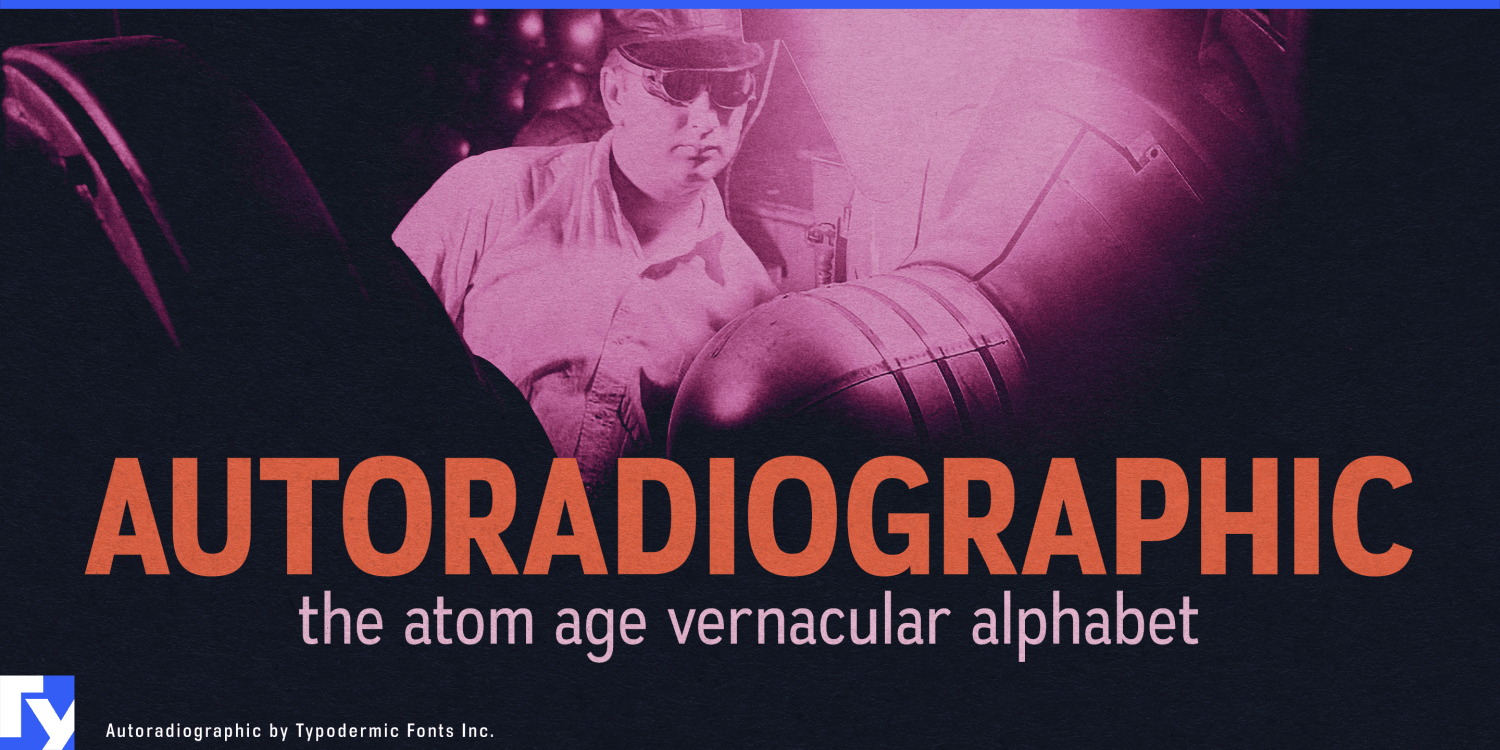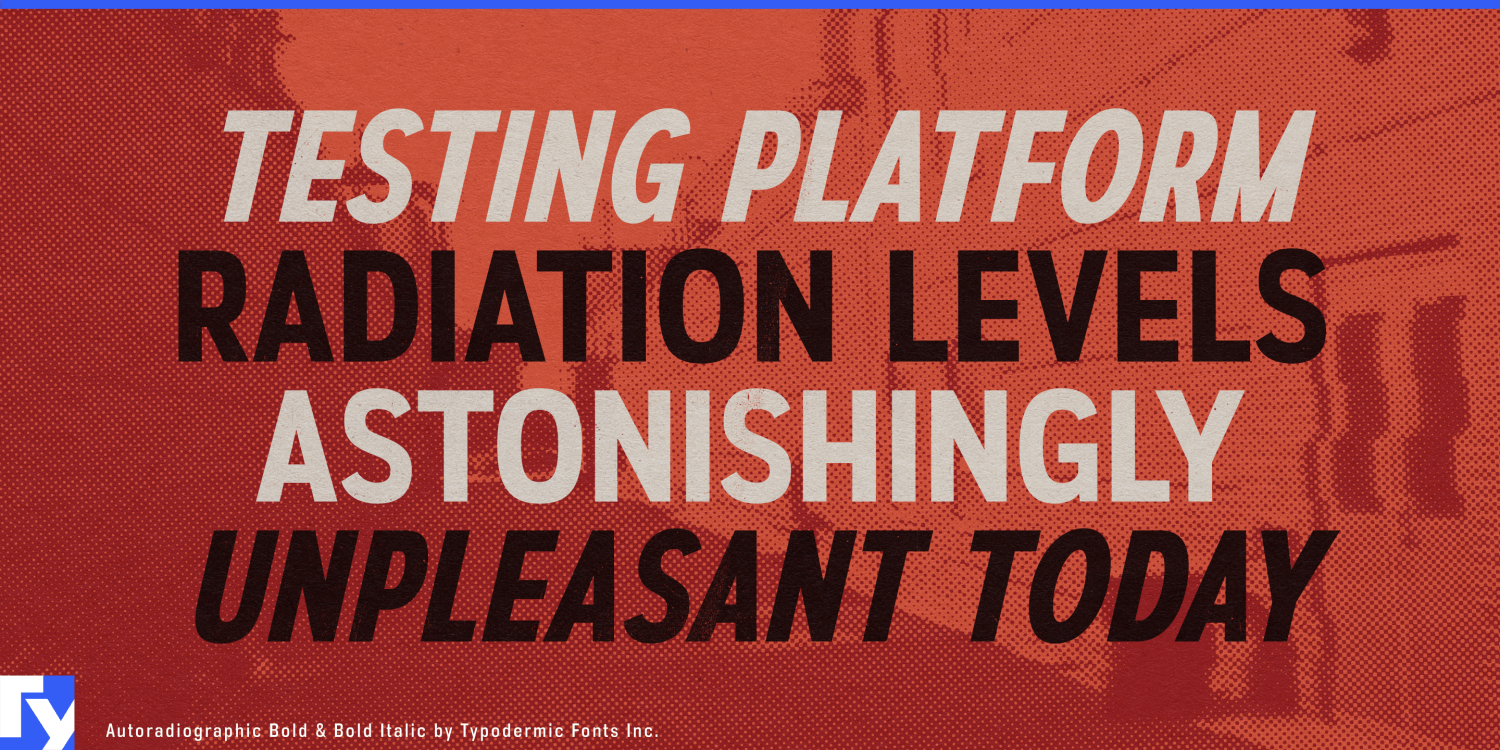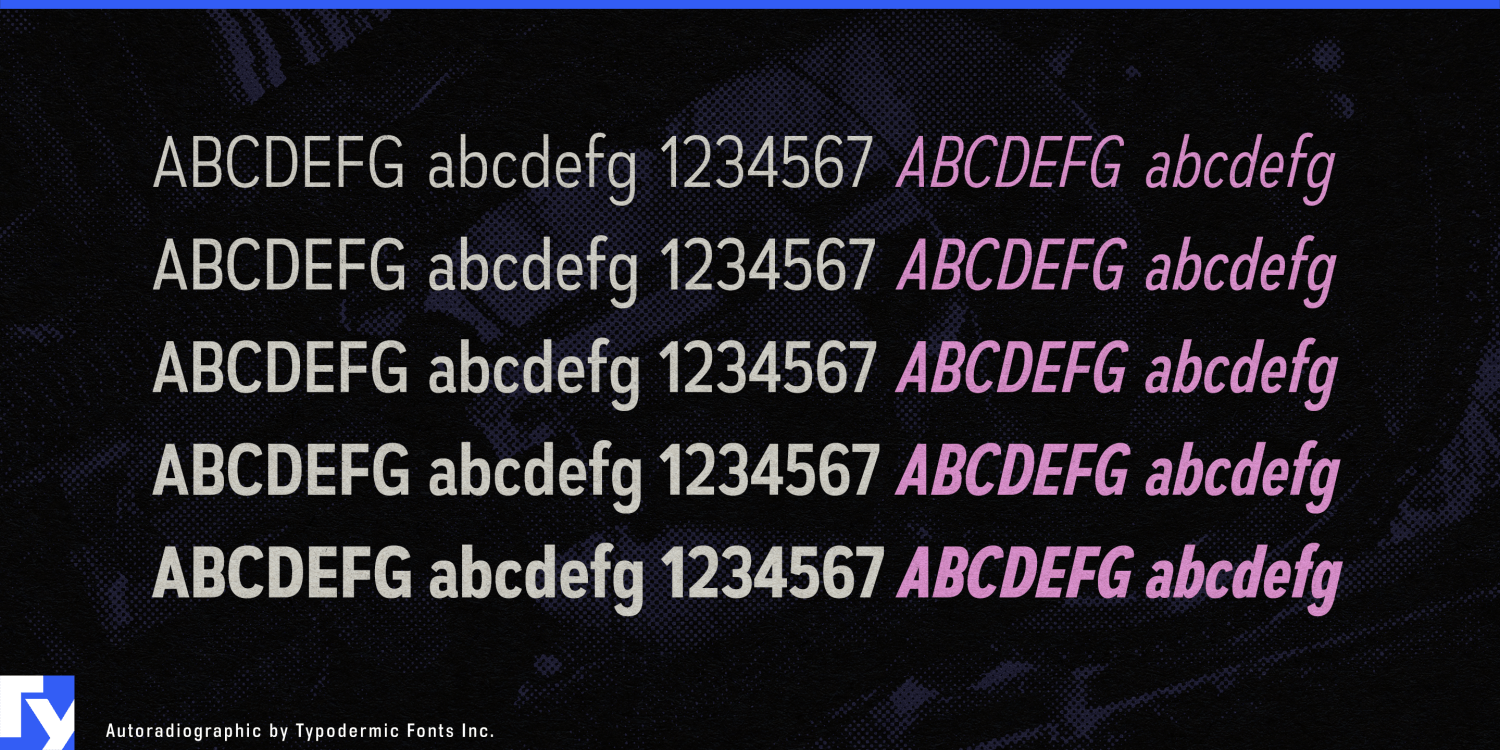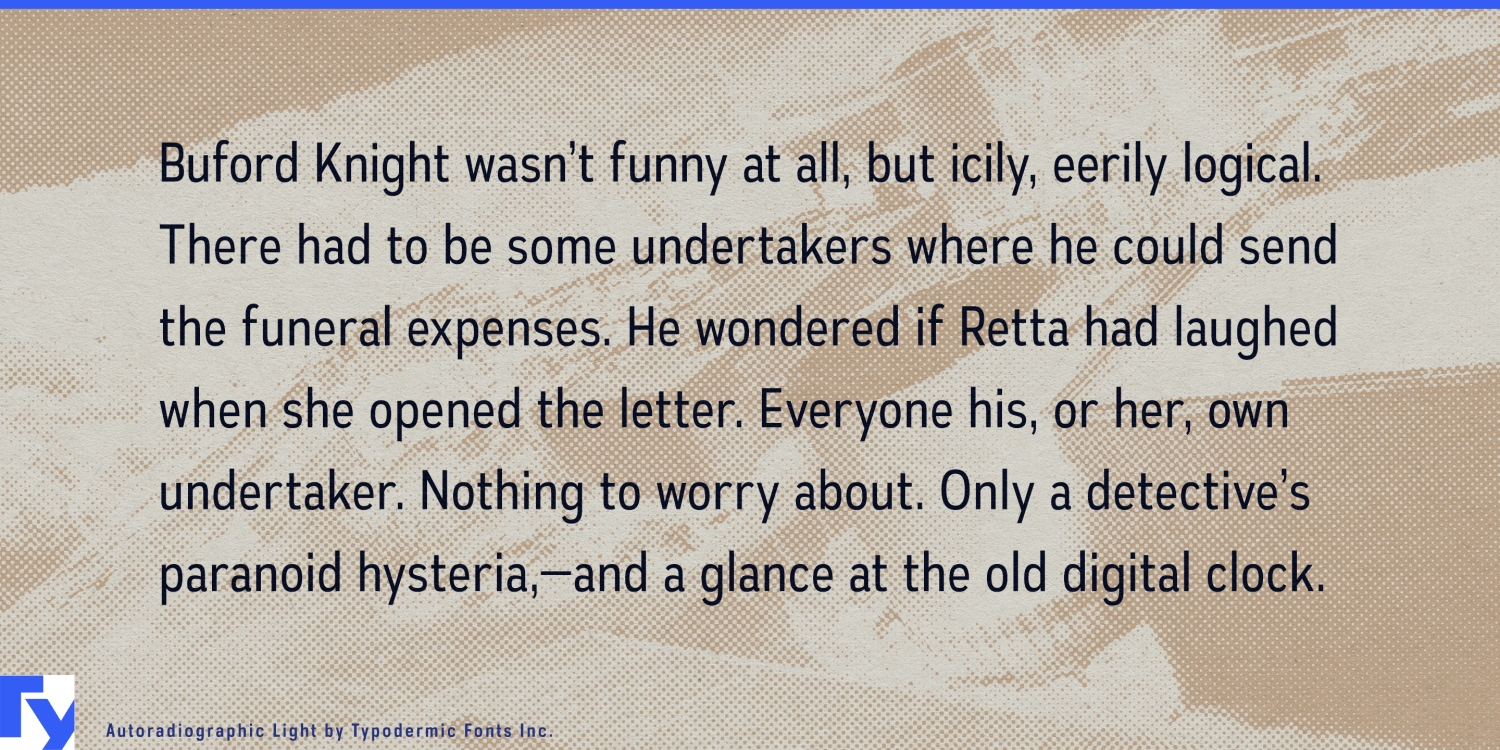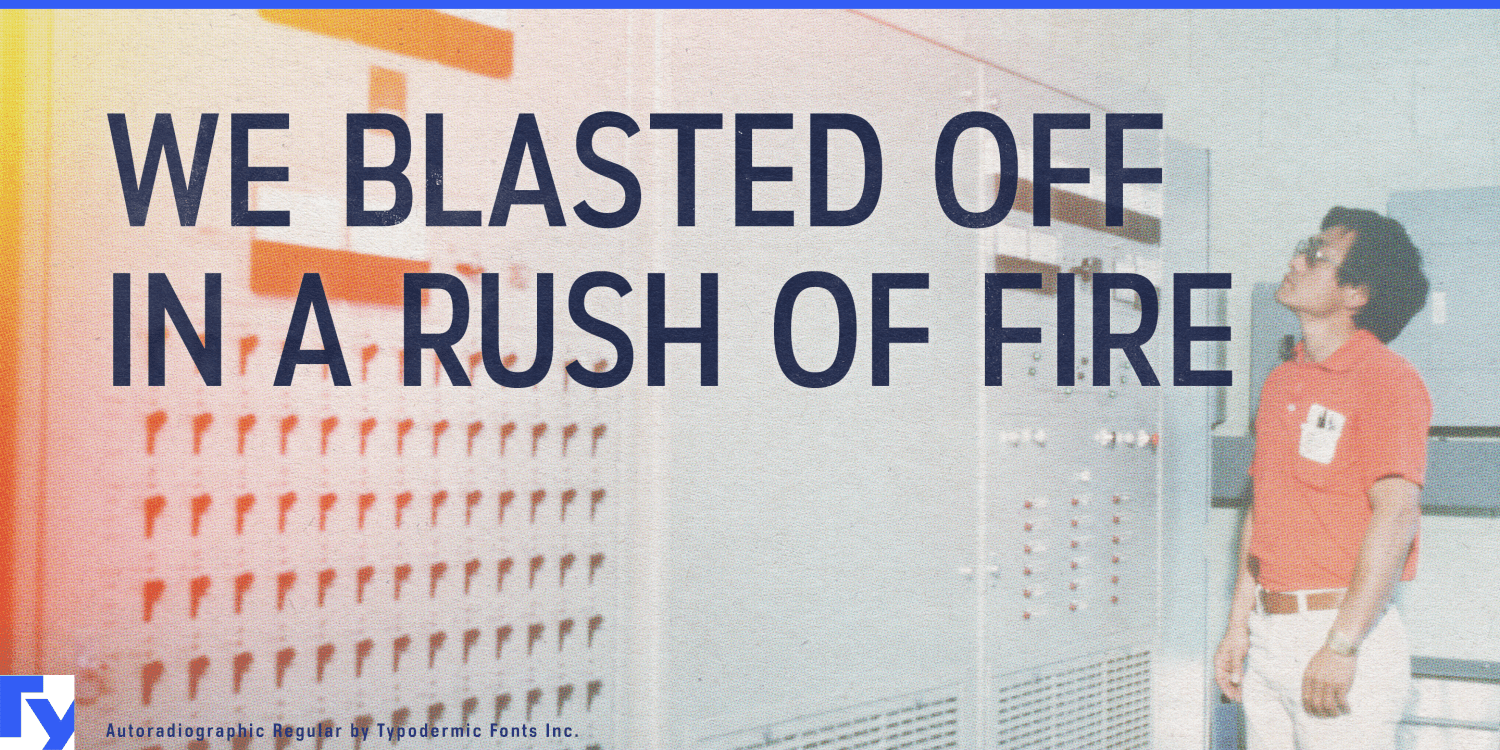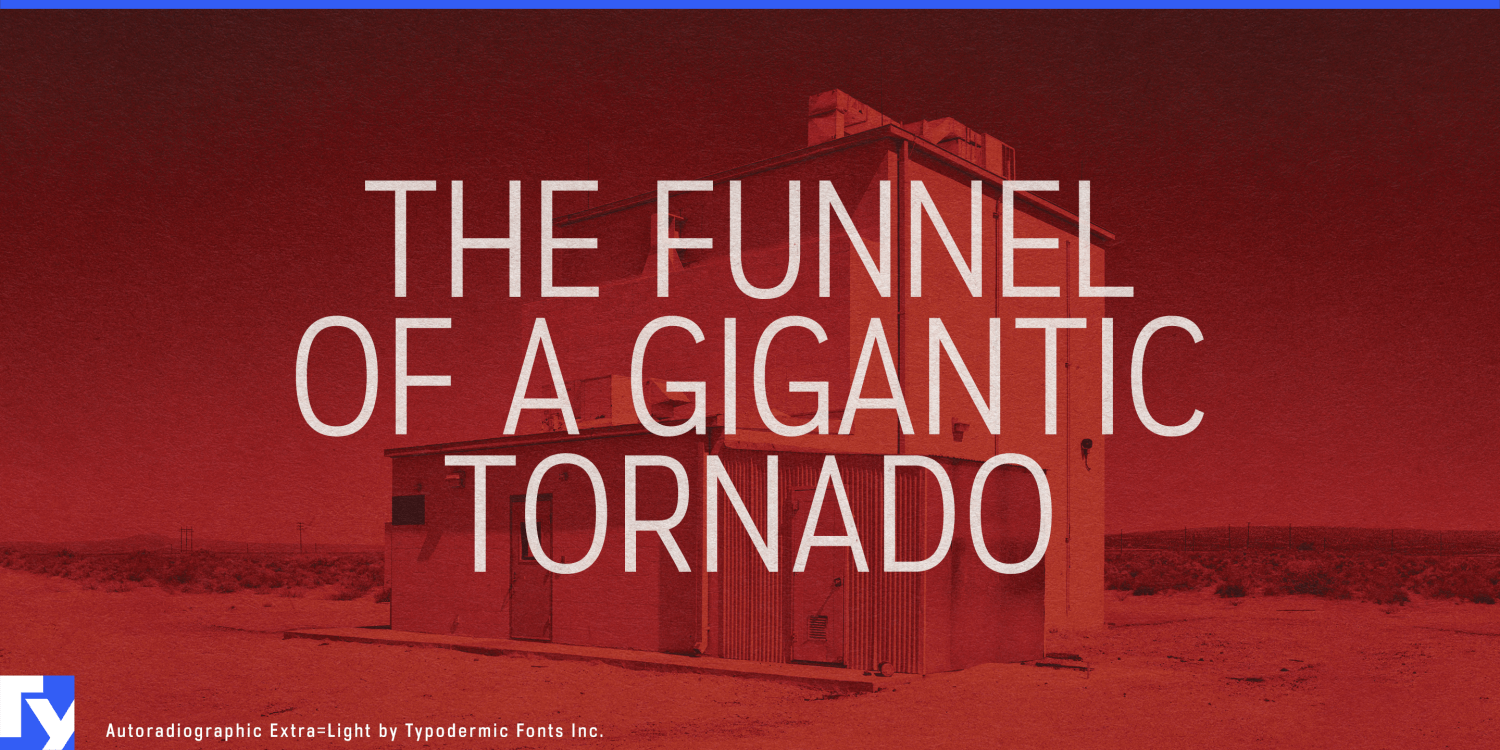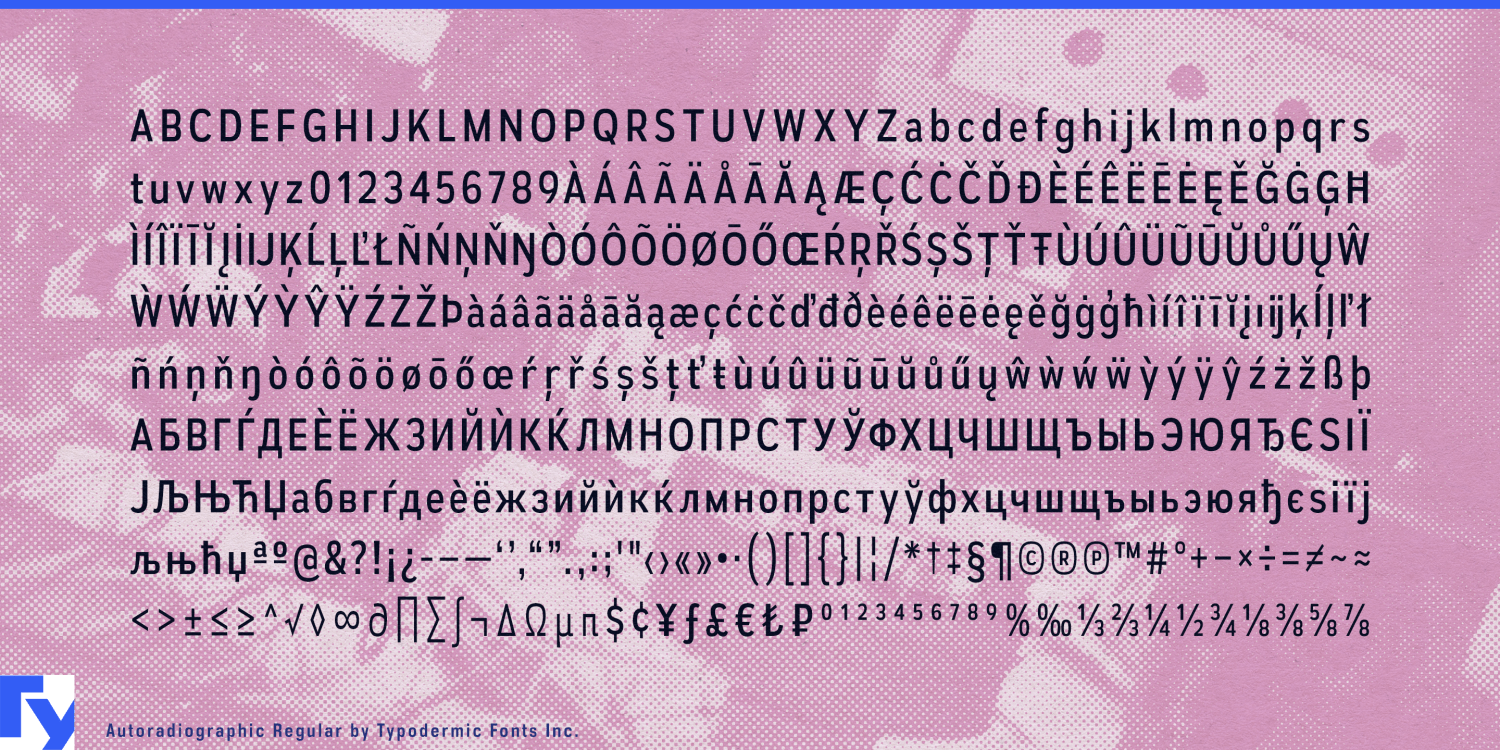
Autoradiographic
Autoradiographic comes from the visual world of the Atomic Age: postwar laboratories, industrial warning signs, test facilities, radiation equipment, and the improvised technical lettering that surrounded America’s new machines. Its condensed romans have the blunt utility of something painted on a cabinet or mounted beside a laboratory door, while the unusually narrow italics introduce a faster, more directional voice. Together they recall the period when rockets, reactors, electronics, and scientific instruments still looked like physical machinery.
That heritage has acquired some striking contemporary uses. Fusion-energy ventures, small modular reactor developers, nuclear-engineering firms, radiation-monitoring companies, and reactor-component manufacturers are once again working in fields with an Atomic Age visual inheritance. Autoradiographic can carry reactor-model names, explanatory diagrams, technology roadmaps, visitor-center graphics, conference displays, recruiting campaigns, and public-facing technical material without collapsing into generic futuristic styling.
Aerospace provides an equally direct connection, particularly around propulsion and testing. Rocket-engine manufacturers, launch facilities, ground-system suppliers, and aerospace test firms can use it for engine names, test-stand graphics, equipment markings, telemetry interfaces, facility identifiers, and technical presentations. Autoradiographic feels less like outer space than the machinery required to get there.
Scientific instruments offer another natural setting. Radiation detectors, laboratory analyzers, vacuum systems, optical equipment, industrial scanners, and measurement hardware can use the romans for model numbers, control labels, equipment faceplates, specification sheets, and calibration displays; the compressed italics can distinguish product names, project codes, or emphatic labels within the same system.
That contrast also suits synthesizers, studio processors, modular electronics, guitar effects, amplifiers, and other products that borrow visual cues from oscilloscopes, military electronics, and mid-century instrumentation. Science museums, aviation collections, nuclear-history exhibitions, Cold War galleries, and space museums can use the same vocabulary for exhibit titles, timelines, interactive stations, catalogs, and exhibition graphics.
Autoradiographic is strongest when the Atomic Age is more than decoration: where reactors are being reconsidered, rockets are being tested, instruments are being calibrated, electronics still have knobs and panels, or a modern project needs the visual language of the laboratory, test site, and machine room.